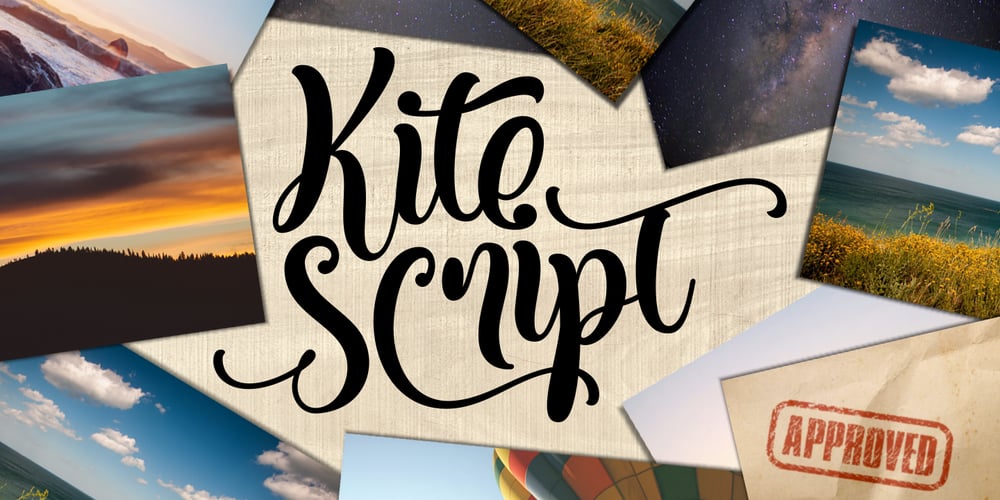
Kite Script
Kite Script font
Kite Script Font Family was designed by Fahrizal Tawakkal and published by Fontdation. Kite Script contains 1 styles and family package options. Kite Script: my another hand-lettering that comes to font. A script typeface that combined thick-thin lines, inconsistent height, loose-tight kerning and unique baseline combinations for natural hand-writing feels. Easy and super playful to customize, suits best for almost all of your designing project; wedding invitations, t-shirt designs, fancy logotype, quote writings, etc.